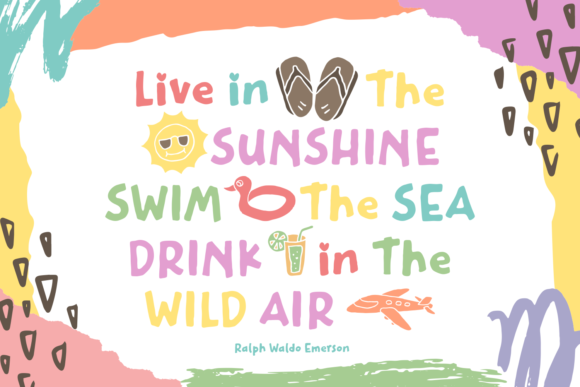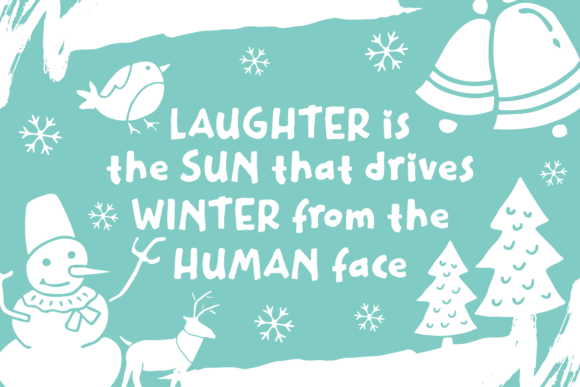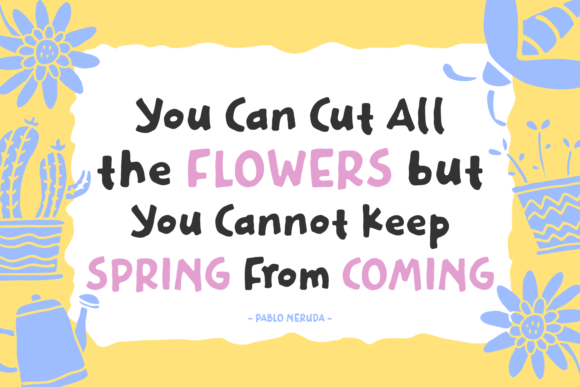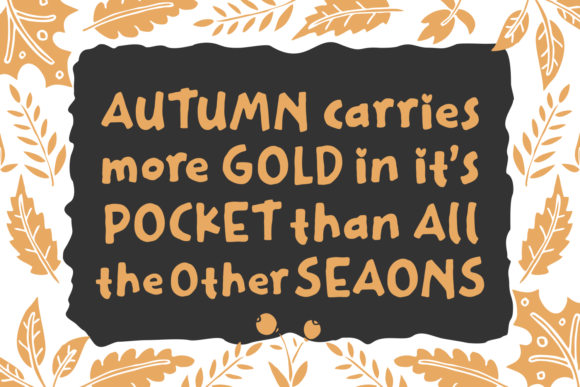
All Season Font
About All Season Font
The All Season is a striking typeface with a good readability. It has a bold, striking look and includes beautiful ornaments from all seasons to create the perfect designs all year long.